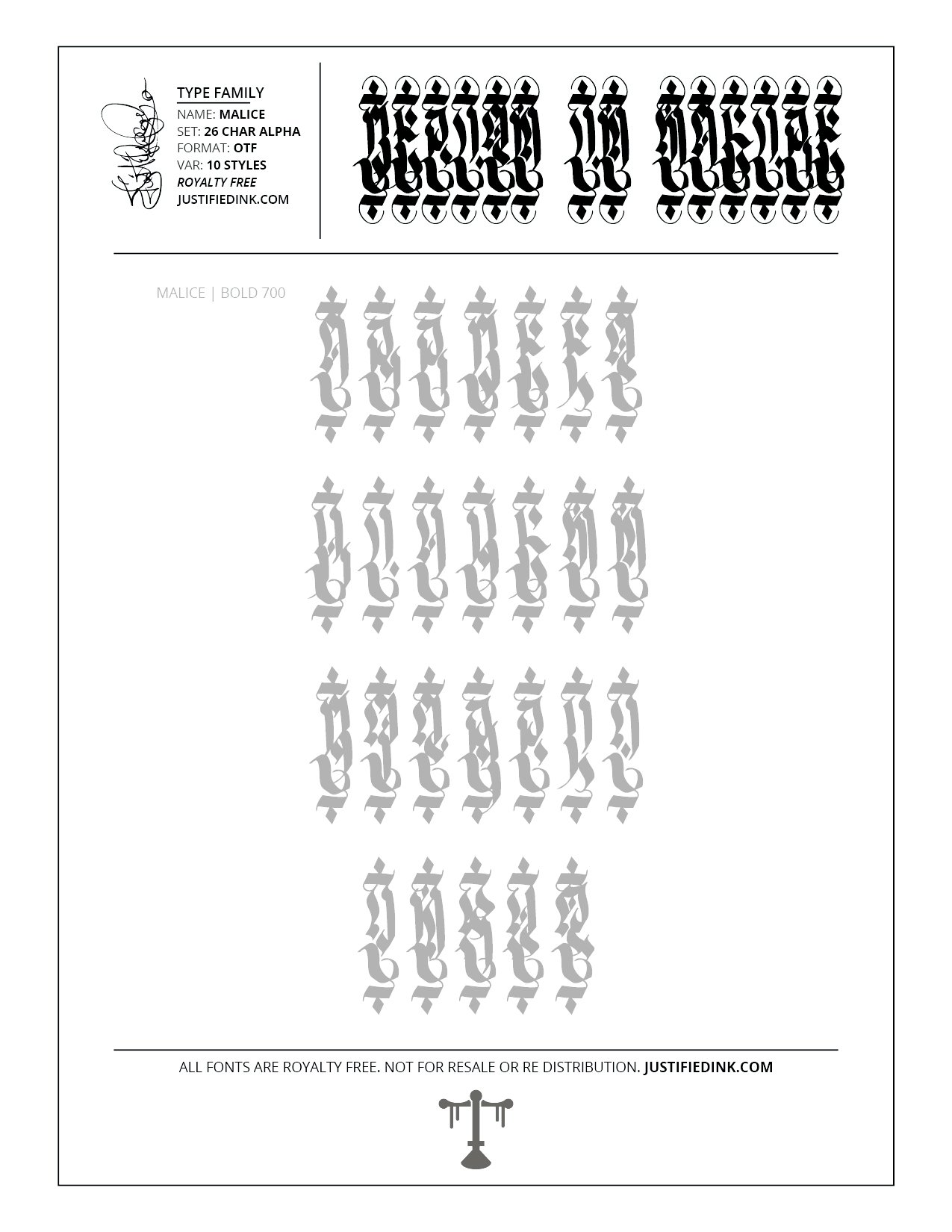
Malice (10 styles) - Custom Font by Justified Ink
The name is Malice, but dont get it twisted. The only malice here is for limitations. "Malice" is all about taking the frustration of stagnation, and using it to power through it and break out.
This font is part of the collection by Justified Ink, called Blackletter II. After 15+ years creating, I began to focus on building personal libraries of my work. The Blackletter II Collection was created through writing page after page, and countless hours over a 2 year span of daily practice. Each font from this collection has been hand drawn, manually vectored, and custom set as a type-able font. It comes in a full set of 26 char alpha. Each font family has variations in styles and/or non-alpha chars.